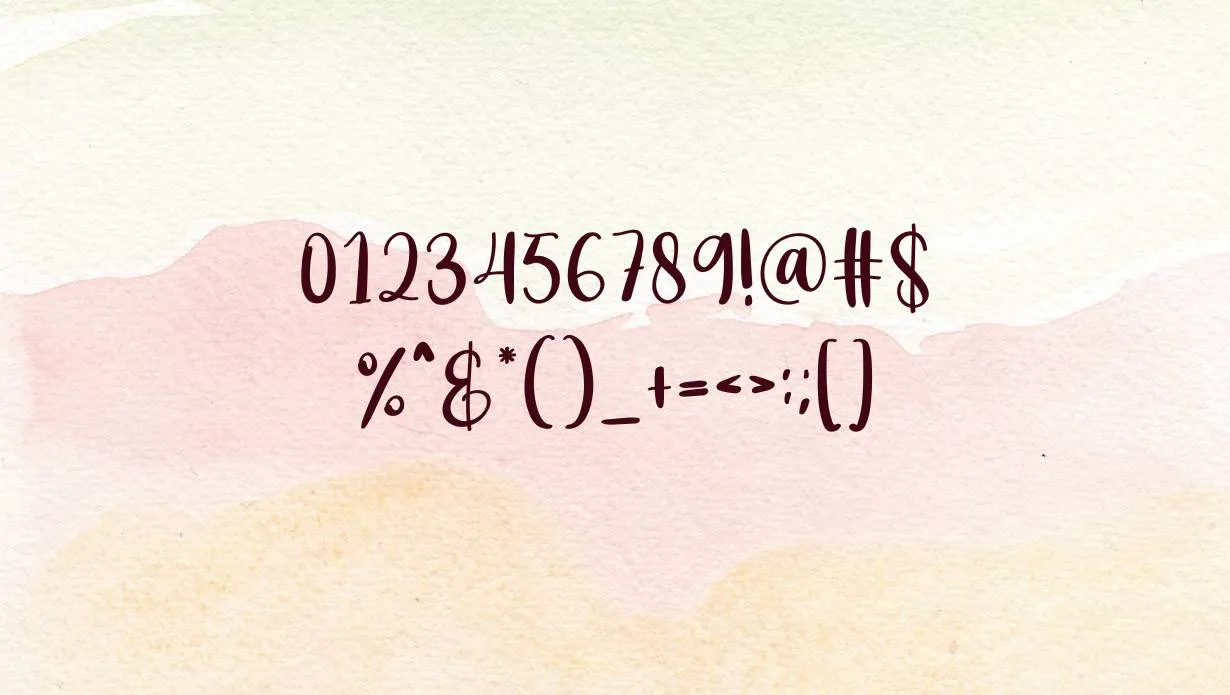
Tattoo Font is an elegant typeface that belongs to the script font family with beautiful characters. This superb typeface was commissioned by a well-reputed typographer named Abdul Basit.
This excellent texture can be paired with myanmar font to startle the viewer and this combination is very beneficial to boost your project. It is available in single regular weight perfect.
- Tattoo Regular
View of Tattoo Font
| Name | Tattoo Font |
| Designer | Abdul Basit |